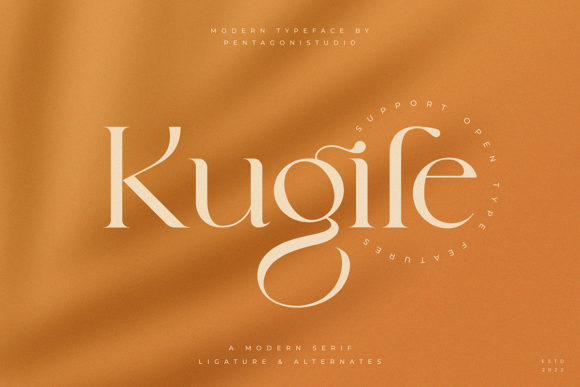
Introducing Kugile Font, the epitome of class and elegance in the world of serif fonts. Created by Pentagonistudio, this font is specially designed to captivate and inspire. With its trendy and stylish appeal, Kugile Font is the perfect choice for those seeking to add a touch of sophistication to their creations.
One of the standout features of Kugile Font is its versatility. Whether you're designing a logo, crafting social media graphics, or creating promotional materials for your beauty salon, this font is guaranteed to make a lasting impression. Its timeless charm and refined aesthetic will effortlessly elevate your designs, setting them apart from the crowd.
What sets Kugile Font apart from the rest is its PUA encoding. This means that accessing all the unique glyphs and swashes is a breeze! With just a few clicks, you can effortlessly incorporate stunning flourishes and decorative elements into your designs, adding that extra touch of finesse that will leave your audience in awe.
The beauty of Kugile Font lies not only in its visual appeal but also in its ability to evoke emotion. It speaks to the senses, drawing the viewer in and captivating their attention. With its graceful curves and exquisite letterforms, this font is a true work of art. It exudes confidence, sophistication, and a touch of whimsy, making it the perfect companion for any creative project.
Imagine your beauty salon logo adorned with the elegant curves of Kugile Font. Picture your social media posts capturing the attention of your target audience with its stylish and eye-catching typography. Envision your promotional materials leaving a lasting impression on potential customers, showcasing the essence of your brand with every glance.
Kugile Font is more than just a font; it's a statement. It's a reflection of your impeccable taste and commitment to excellence. It's the secret ingredient that will take your designs from ordinary to extraordinary. So why settle for mediocrity when you can embrace the allure of Kugile Font and unlock a world of endless possibilities?
Embrace the power of Kugile Font today and let your creativity soar to new heights. With its captivating beauty and unrivaled versatility, this font is a must-have for anyone seeking to make a bold and unforgettable statement. Step into a world of elegance and sophistication with Kugile Font – the best font for beauty salons and beyond.